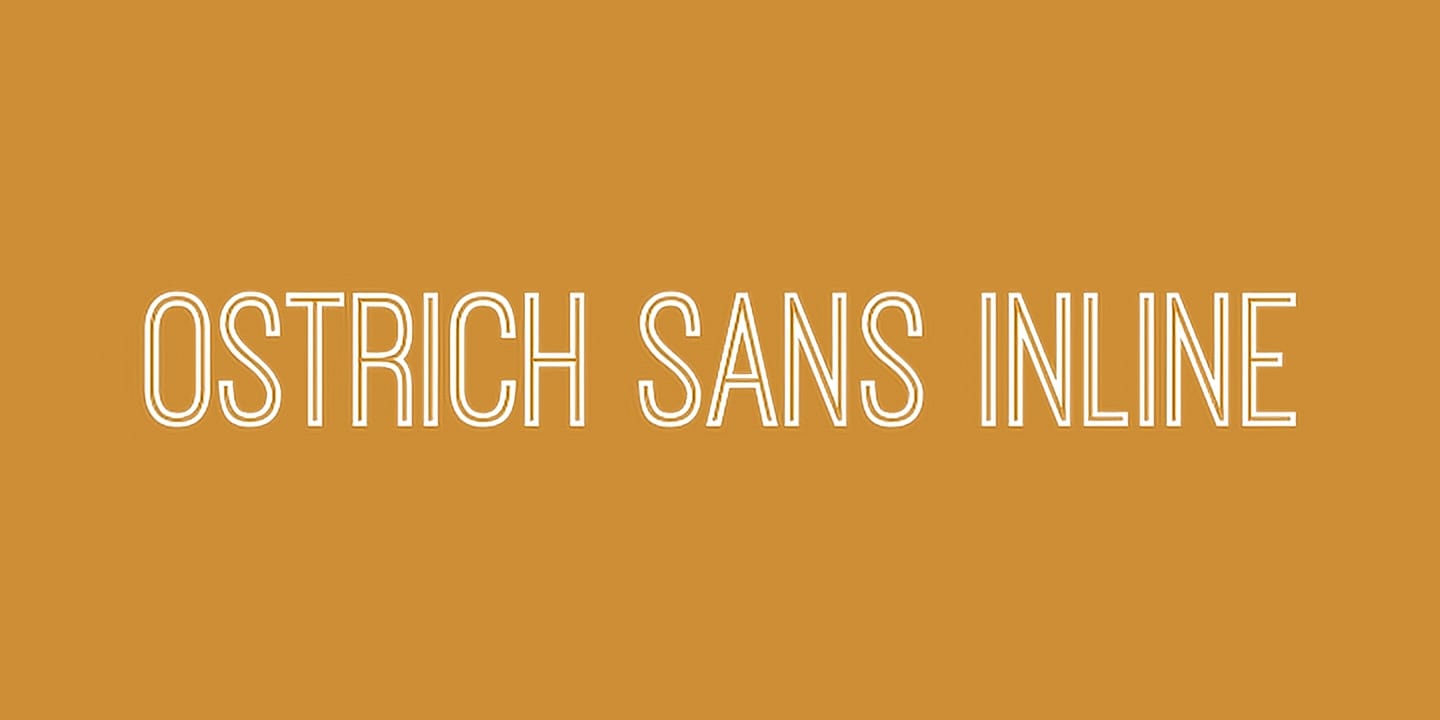
Ostrich Sans Inline font family
Ostrich Sans Inline font family offers a modern and versatile typeface that stands out in any design project. With its clean lines and contemporary aesthetic, this font is perfect for both print and digital media. The unique inline style adds a touch of personality while maintaining readability, making it suitable for headings, posters, and advertisements.
This font family includes two styles, allowing for flexibility in your design work. Overall, Ostrich Sans Inline combines elegance and functionality, making it an excellent choice for designers looking to enhance their creative projects. Give it a try and see how it can transform your typography.